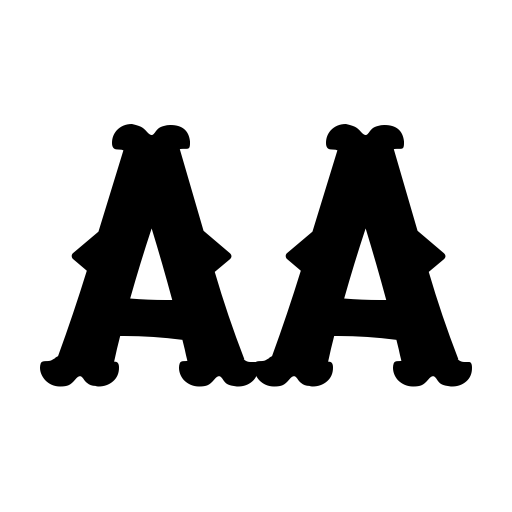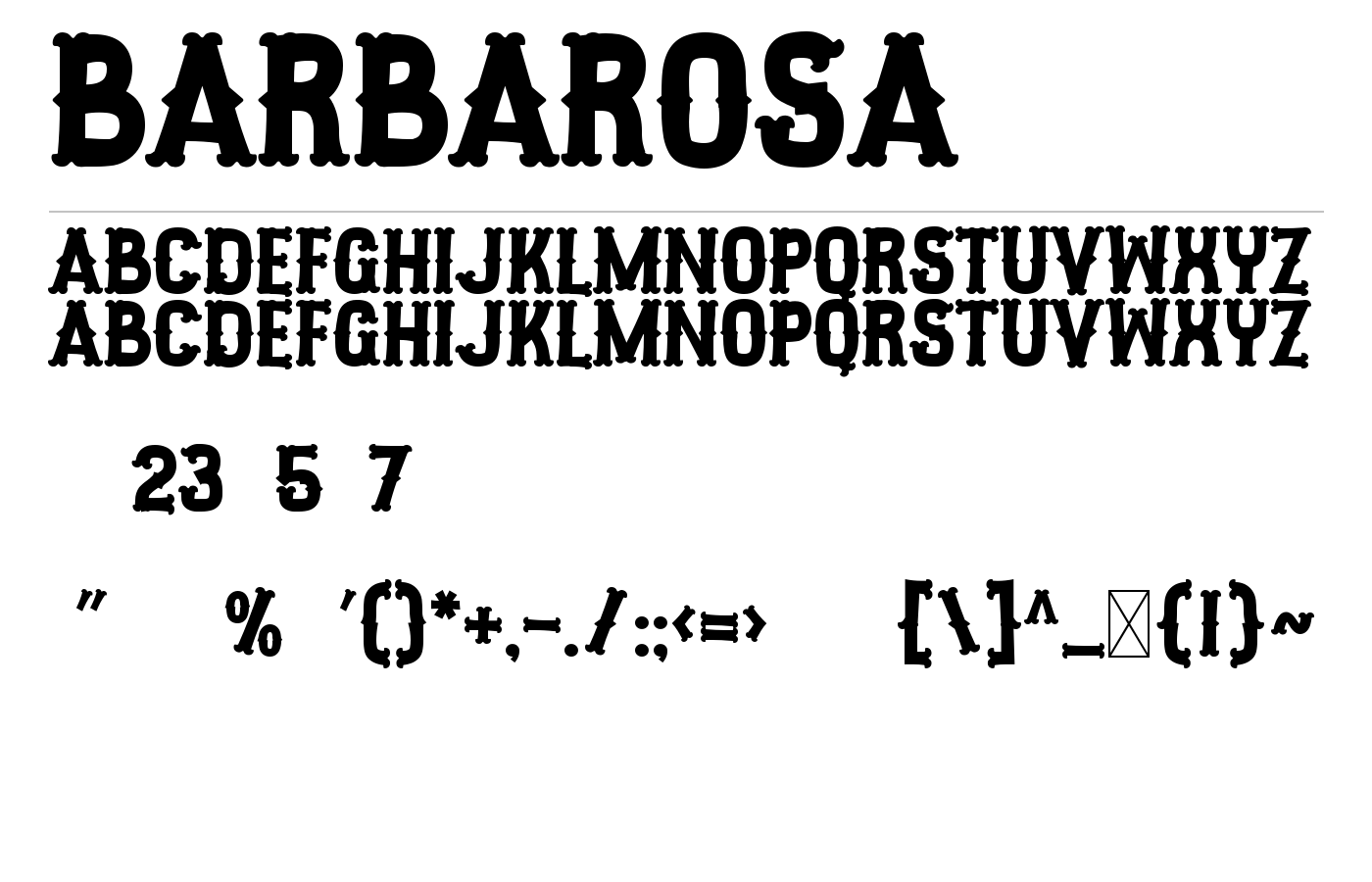
Barbarosa is a bold, condensed slab serif font with a strong vintage western feel, characterized by its thick, bracketed serifs and high contrast between thick and thin strokes. The uppercase-only design features sturdy, somewhat playful letterforms with unique detail accents, making it ideal for eye-catching headlines, posters, and branding that aims to evoke rugged, old-time Americana or rustic charm. Its distinct style works well for fashion, packaging, and editorial designs where a standout, nostalgic personality is desired.
Barbarosa Font
About Barbarosa Font
| Font family | Barbarosa Font |
| Designer | Anang F & Malik Wsn | Gassstype© Studio 2022 |